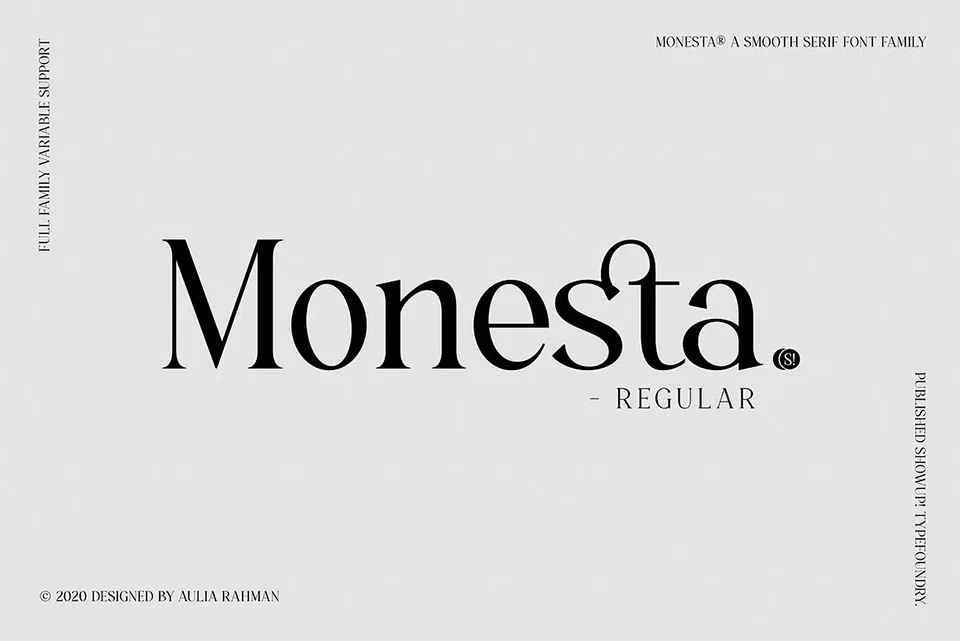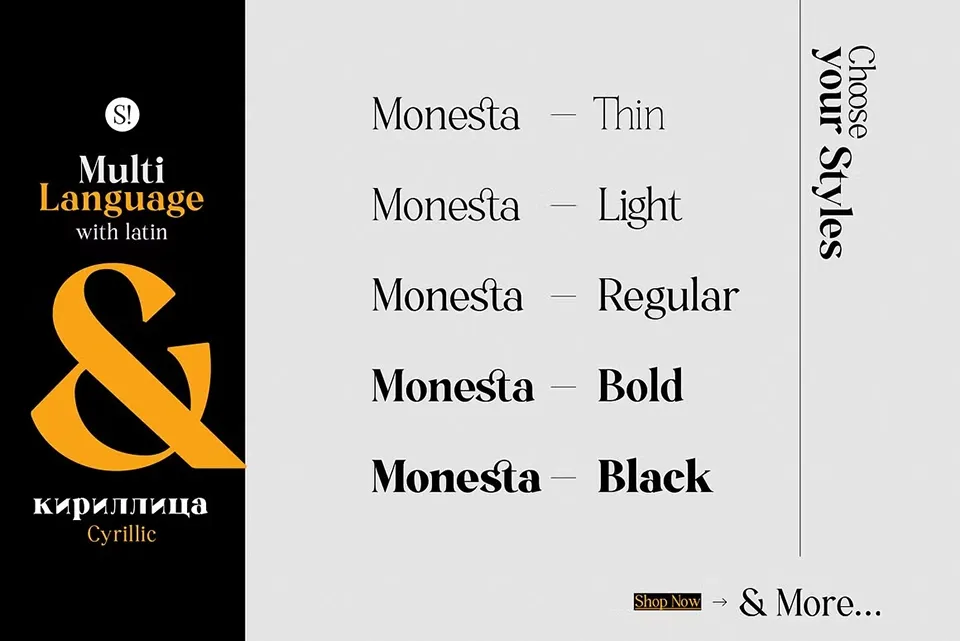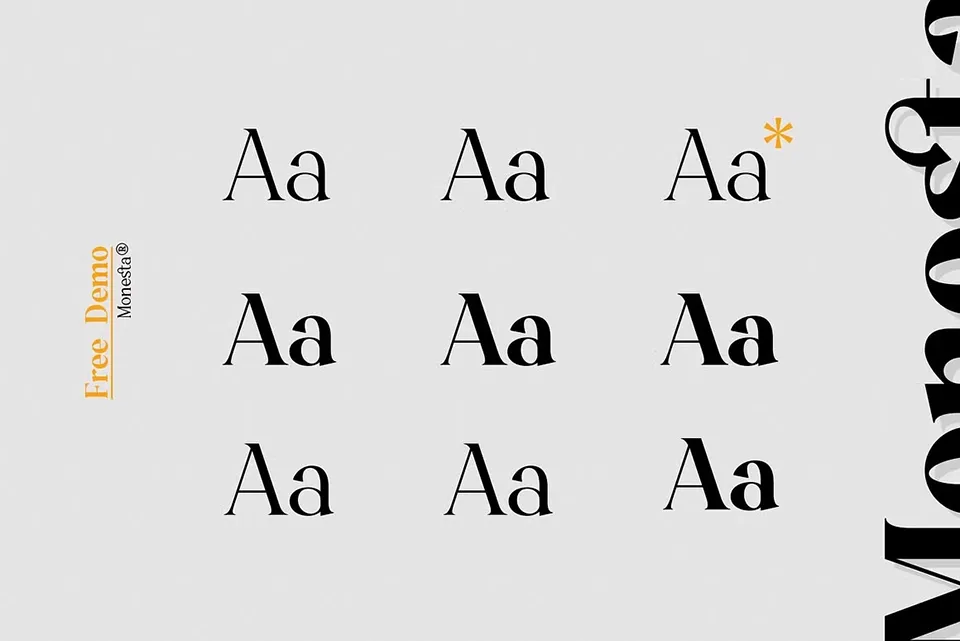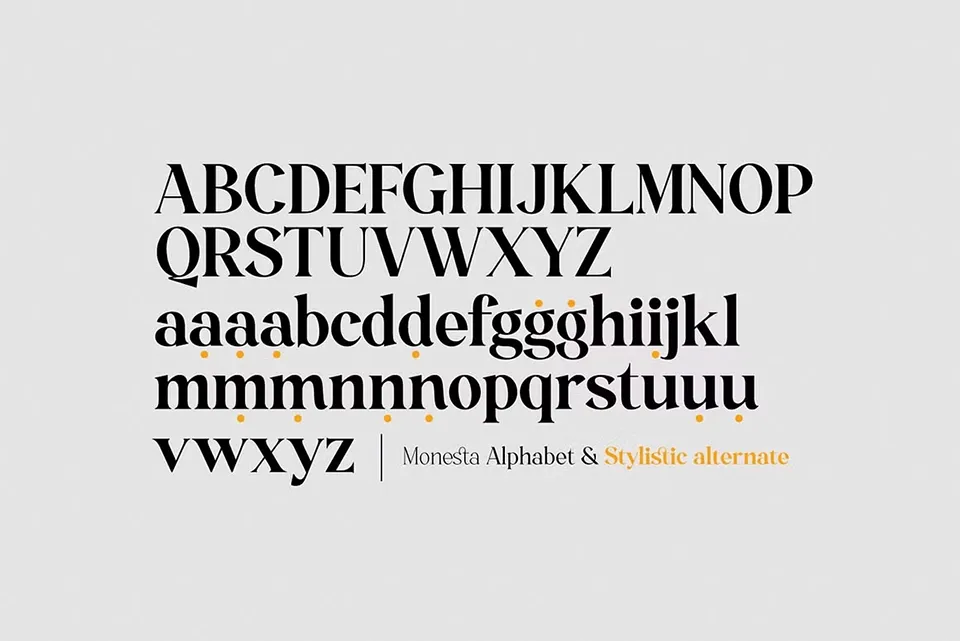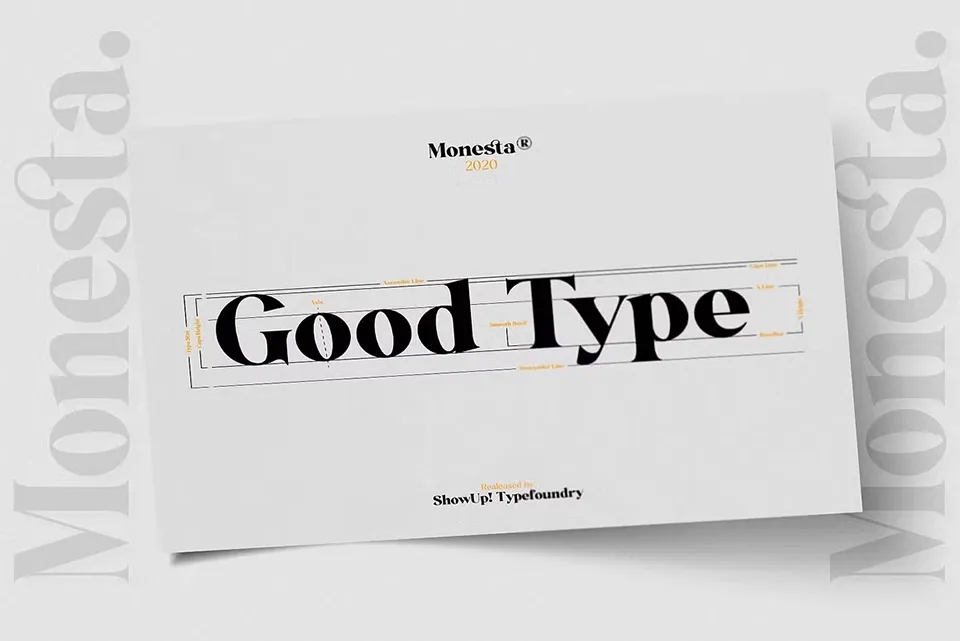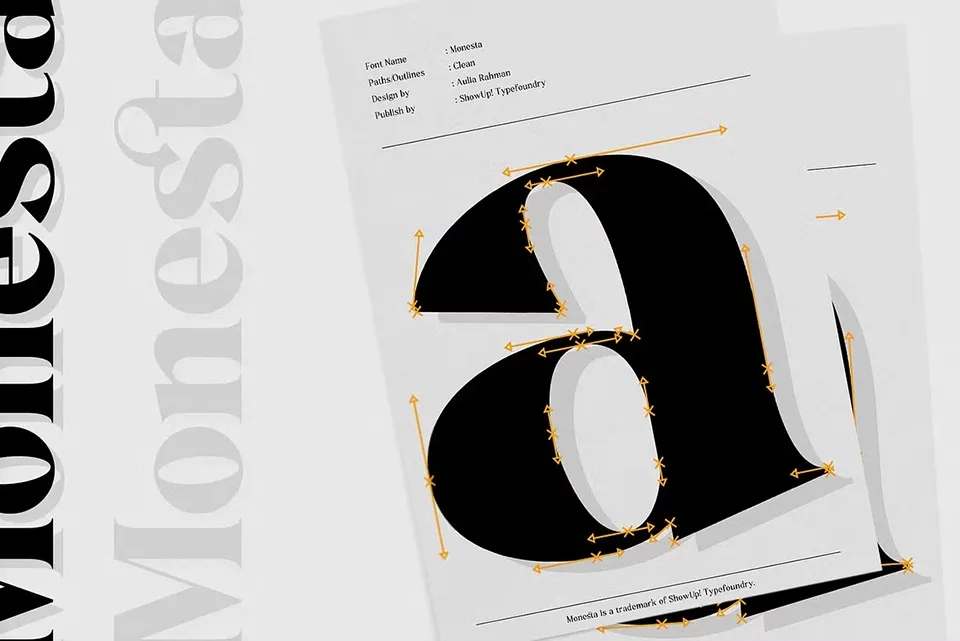
Monesta Font
Monesta Font, designed by Aulia Rahman and published by ShowUp! Typefoundry, is a confident and smooth modern serif font family. It is characterized by a sense of softness and expressiveness, featuring a unique ligature style. Conceived as a beautiful and bold communication tool, Monesta brings energy to modern design projects. The versatile font family offers nine weights and extensive support for major Latin-based languages as well as Cyrillic. A demo version is available free for personal use, while the full version requires a commercial license for business purposes.